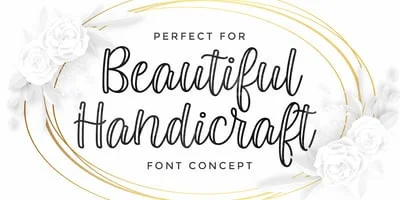
Kembara Cinta Font
Kembara Cinta Font is perfect for romantic travel blogs, destination wedding invitations, love story book covers, honeymoon resort branding, couples photography portfolios, Valentine's Day campaigns, romantic getaway advertisements, intimate restaurant menus, anniversary celebration materials, and heartfelt greeting card designs.
What makes Kembara Cinta Font so exciting is its enchanting blend of wanderlust and romance that beautifully captures the magic of love's greatest adventures. This captivating script typeface features flowing curves, passionate flourishes, and dreamy letterforms that evoke the excitement of romantic journeys and intimate discoveries, making it the perfect choice for brands that celebrate love's most beautiful moments and unforgettable experiences.
The Kembara Cinta Font family includes regular, bold, and decorative versions, along with romantic ornaments, travel-inspired symbols, heart motifs, and elegant swashes. Each style maintains the font's signature passionate character while providing designers with versatile options for creating deeply emotional communications that speak directly to lovers' hearts.
Whether you're designing for romantic travel agencies or intimate event planners, Kembara Cinta Font brings authentic emotional connection to every project. The font's lovingly crafted letterforms ensure perfect readability while maintaining its enchanting romantic appeal that resonates with couples seeking meaningful experiences and lasting memories.
This passionately designed typeface works beautifully across both intimate print pieces and digital love stories. The Kembara Cinta Font maintains its romantic charm whether used in personal wedding invitations or grand destination marketing campaigns, making it essential for anyone creating designs that celebrate love's greatest adventures.
Embark on a journey of love with Kembara Cinta Font and experience typography that captures every heartbeat of romance's most beautiful travels.